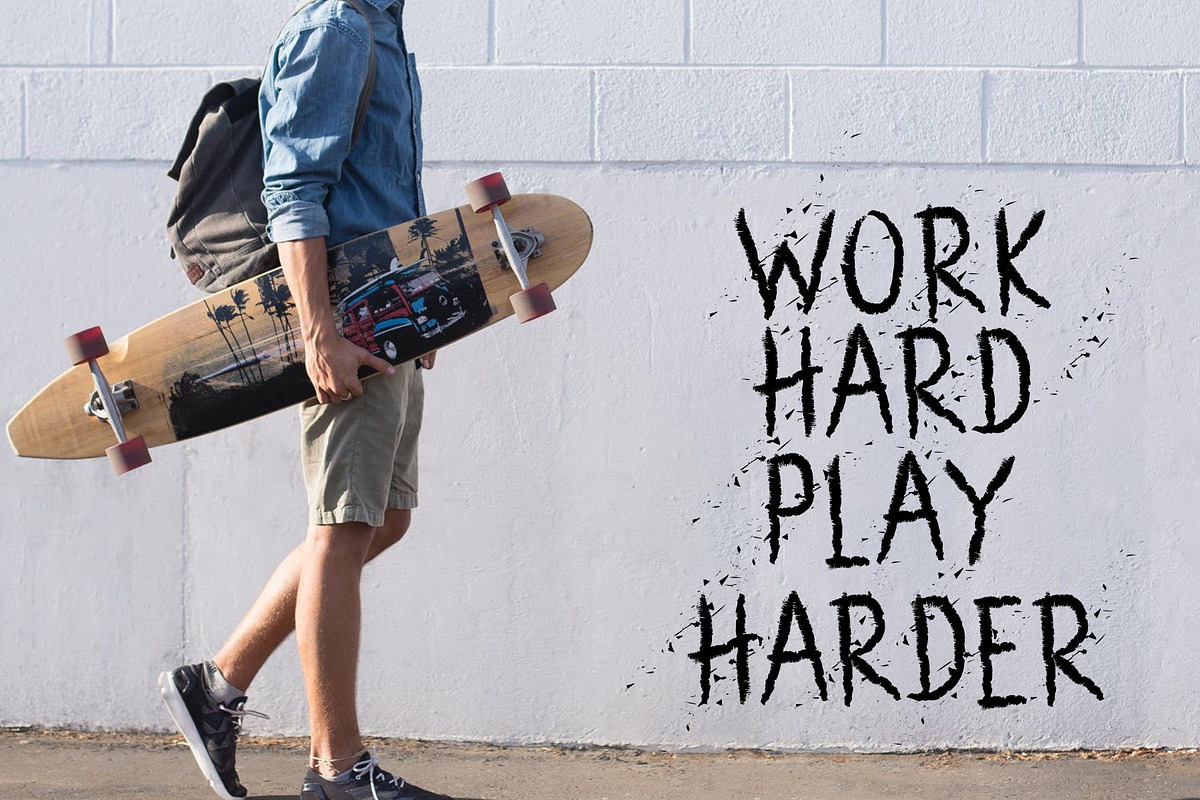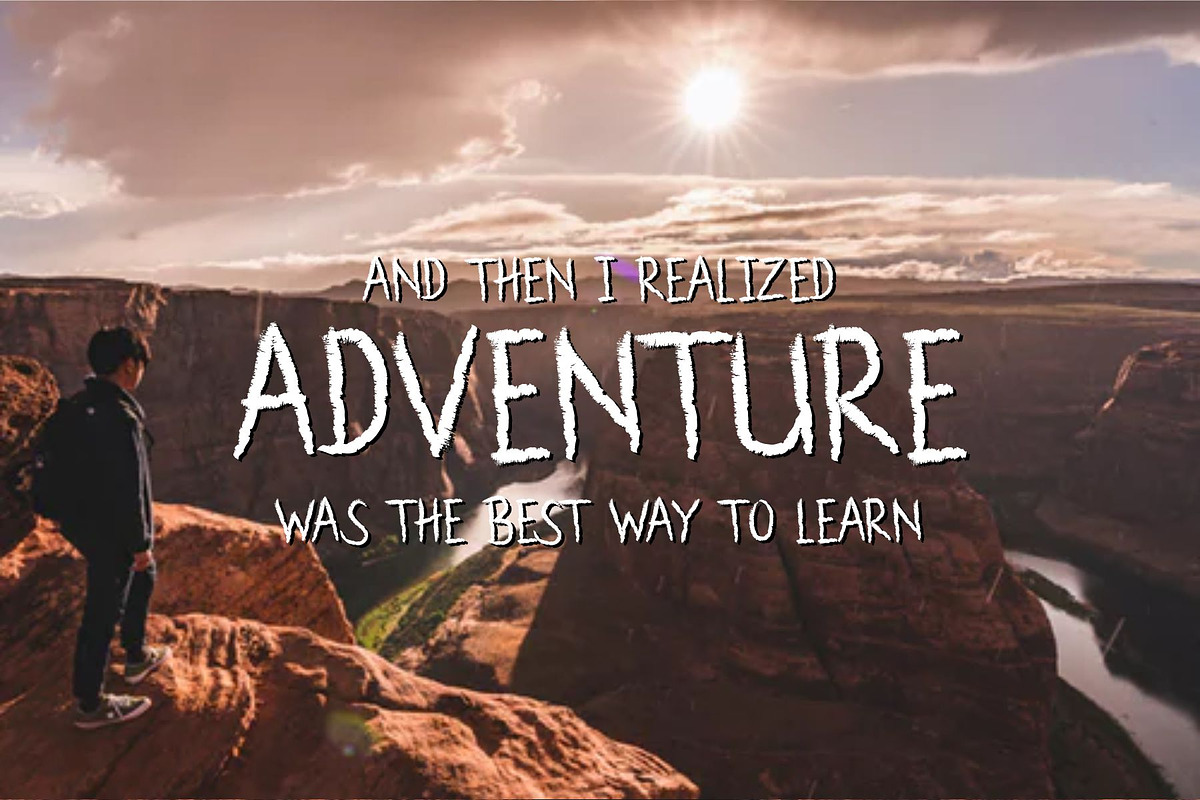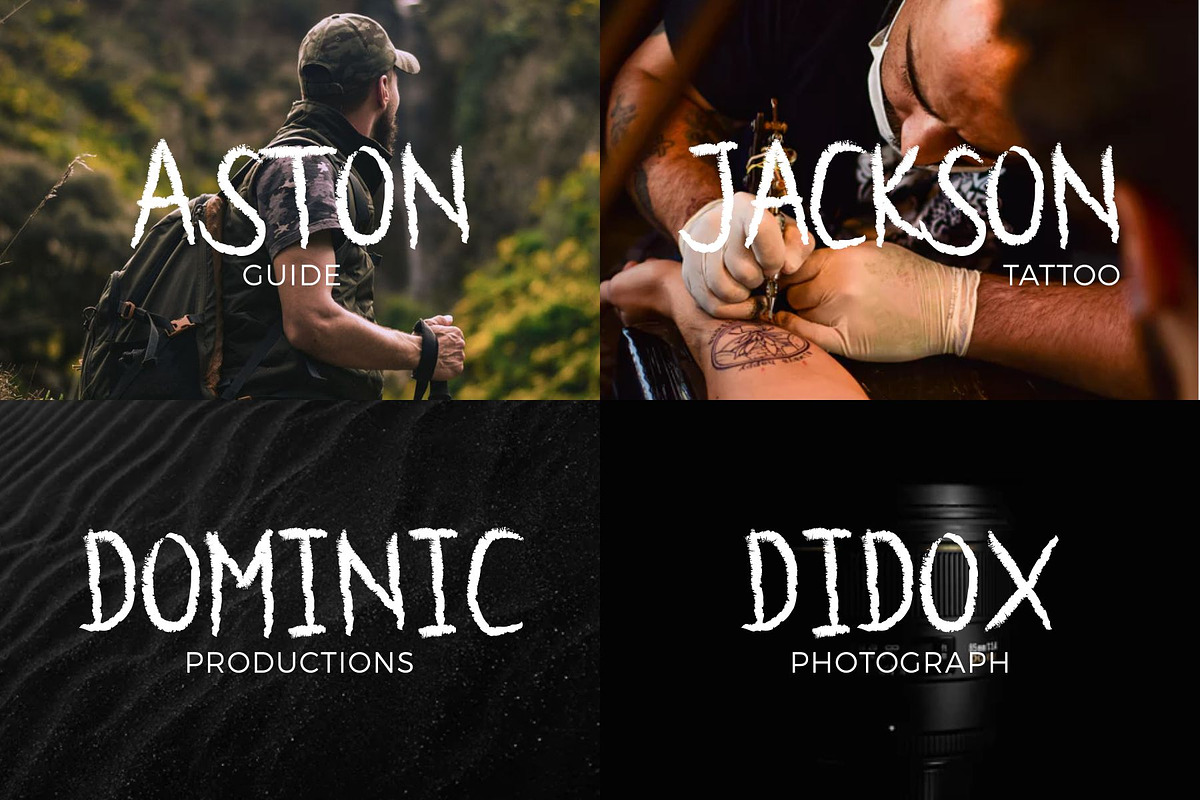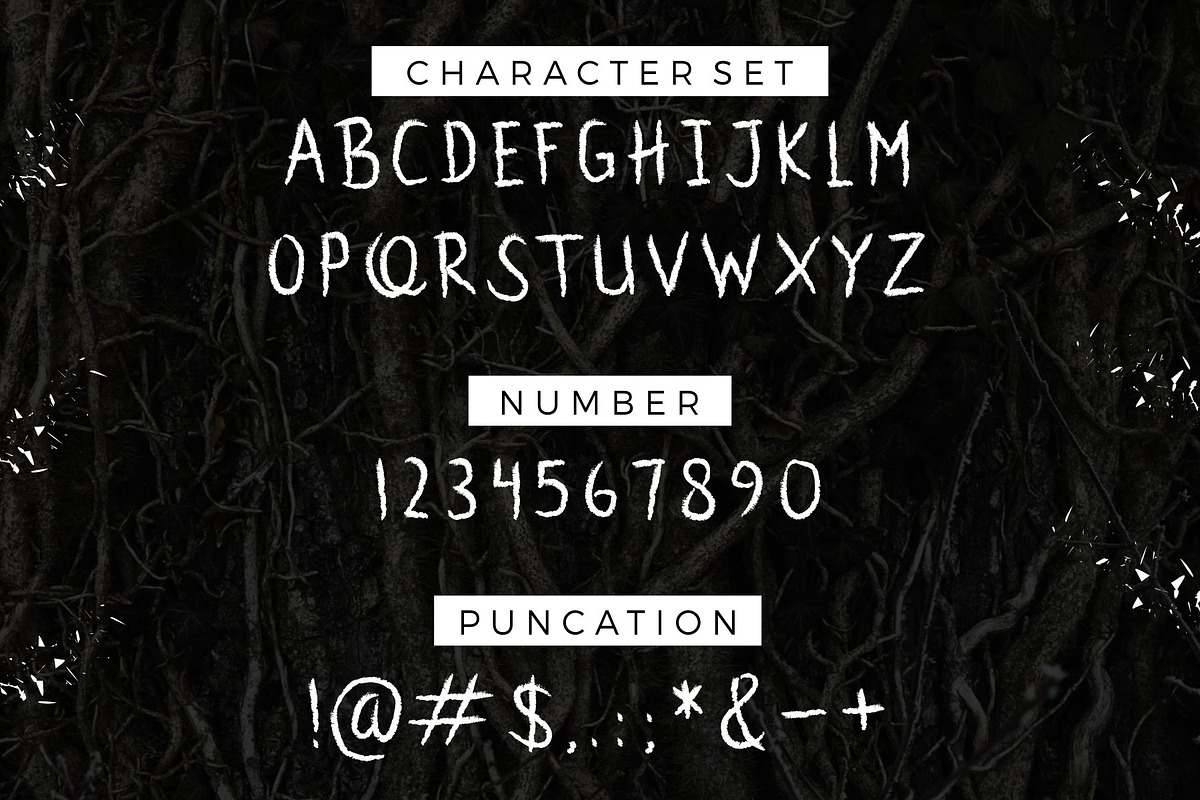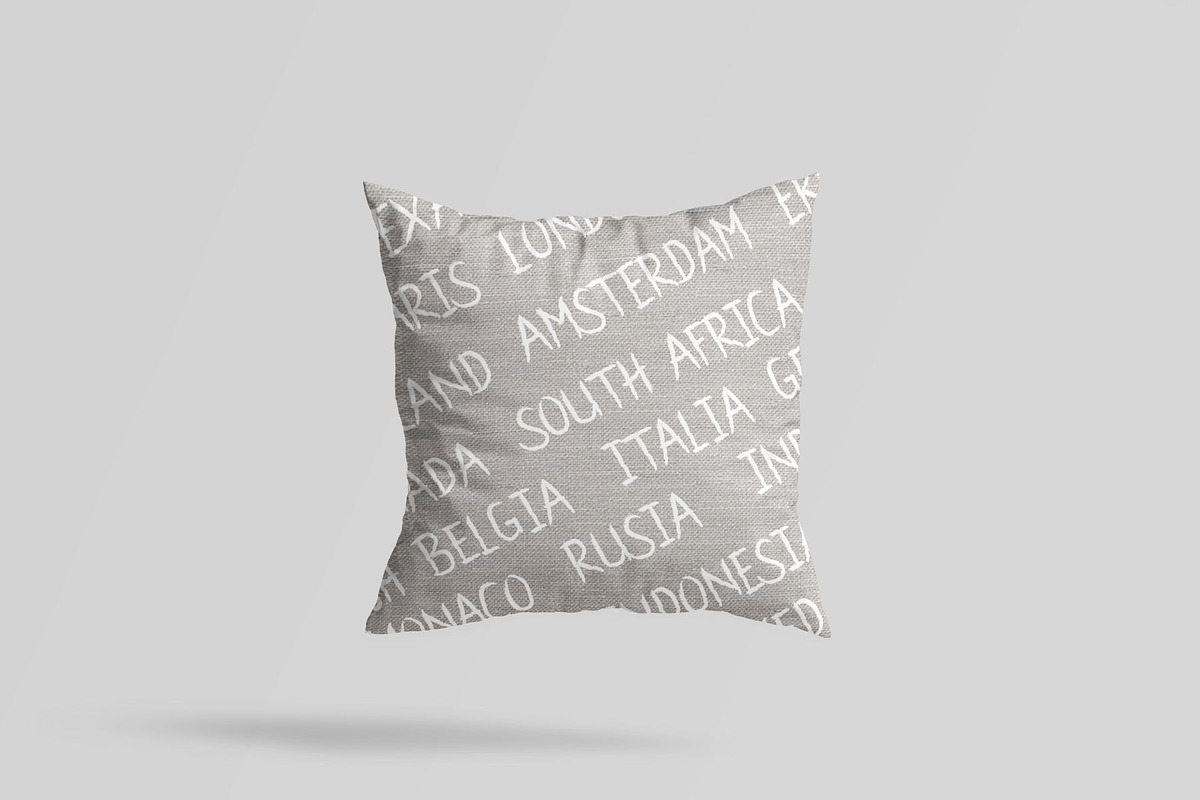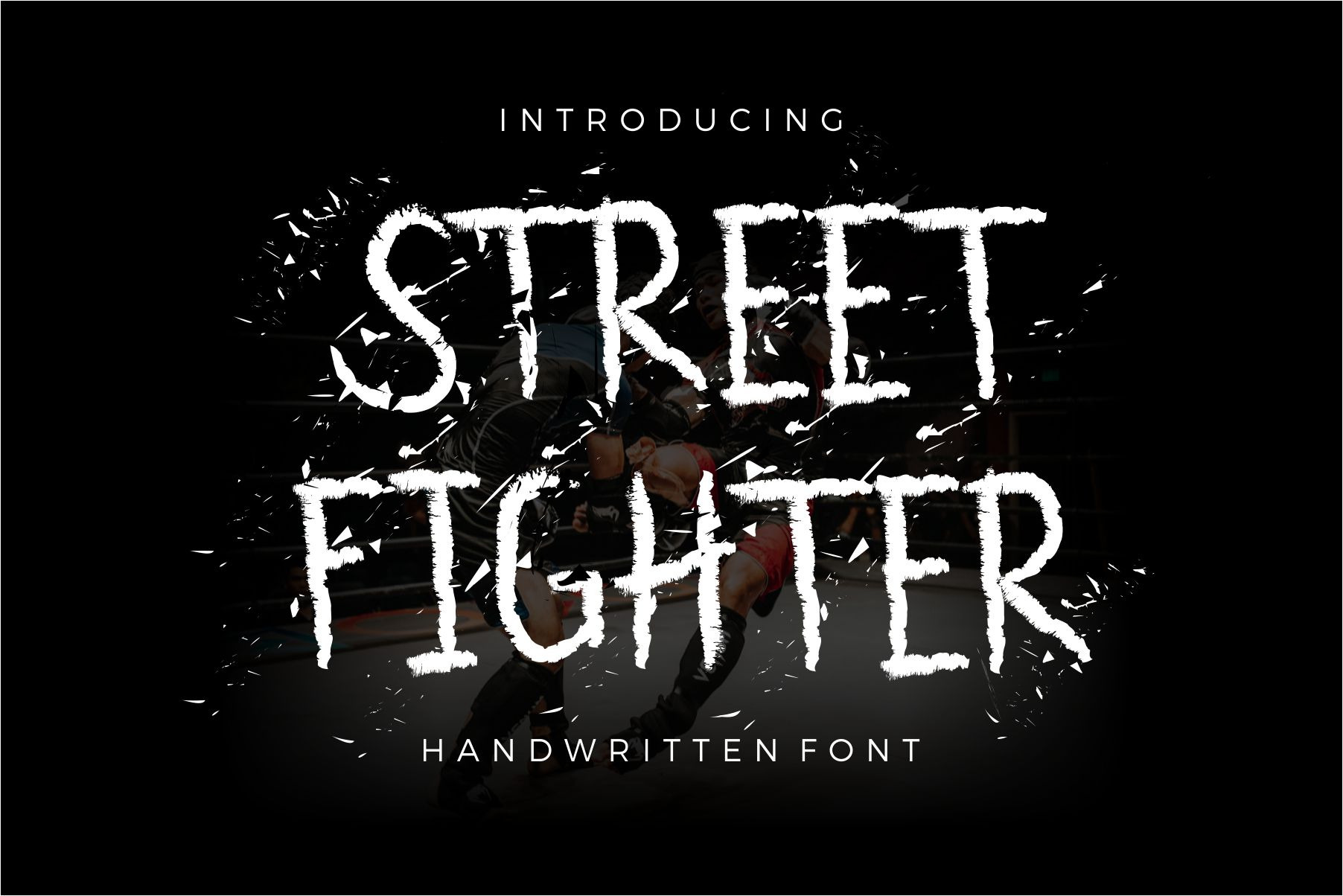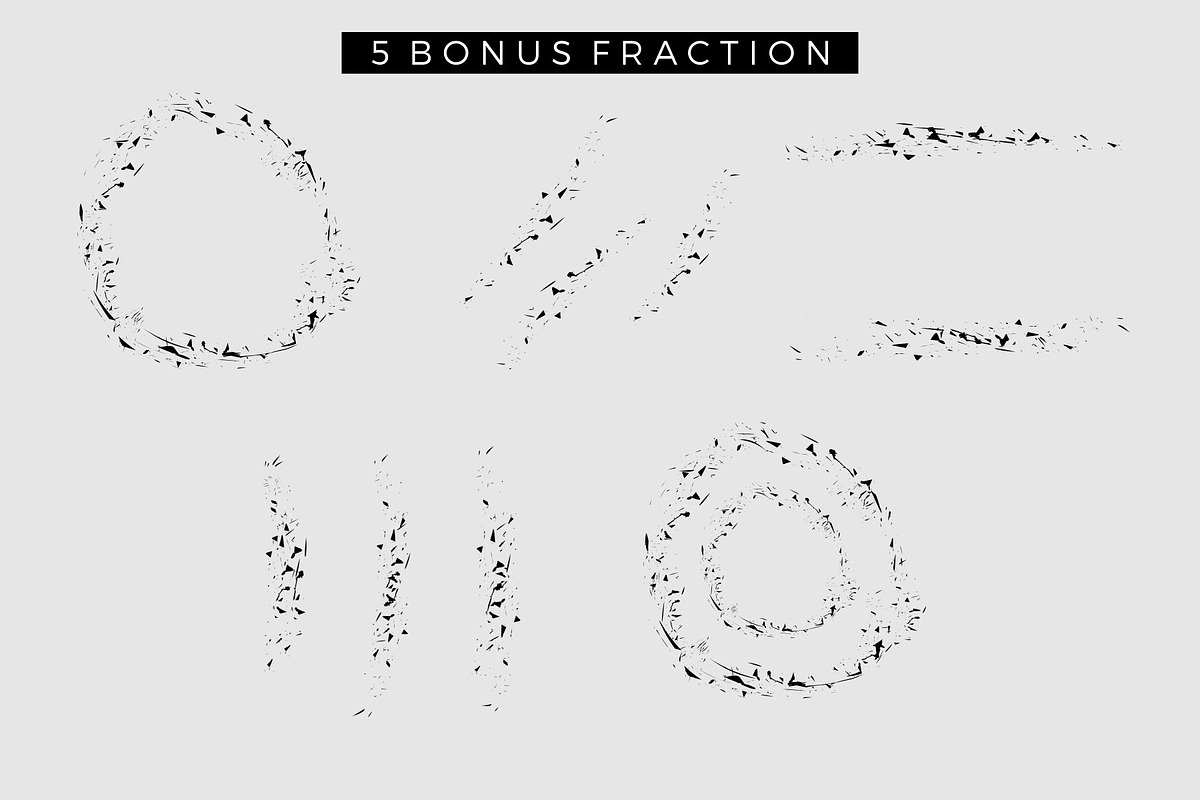
STREET FIGHTER FONT
DETAILS STREET FIGHTER is a very fancy hand font full of energy. With extra attention to scratches and sharp details, the STREET FIGHTER is guaranteed to deliver hard and fast messages; ideal for logos, clothing, quotes, product packaging, or anything that requires a turbo typographic boost.
STREET FIGHTER ~ Fonts are handmade all capital letters that have a full set of alternative A-Z characters covered in uppercase & lowercase letters.